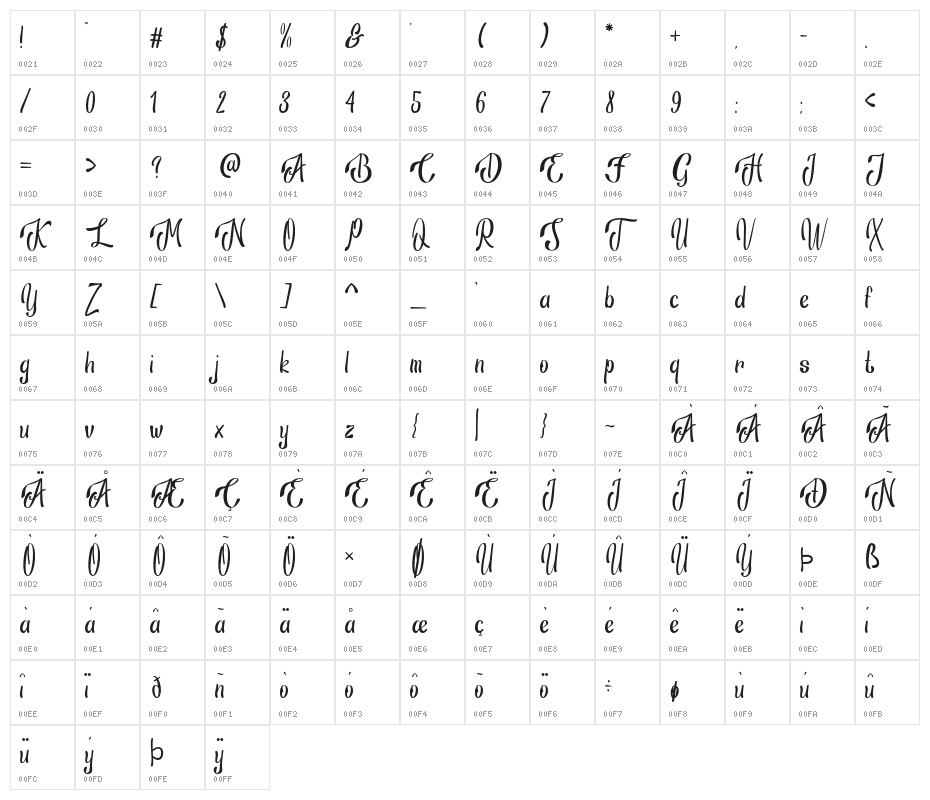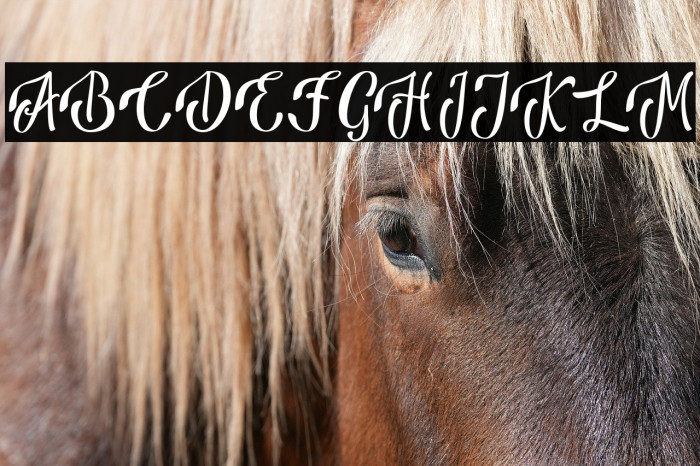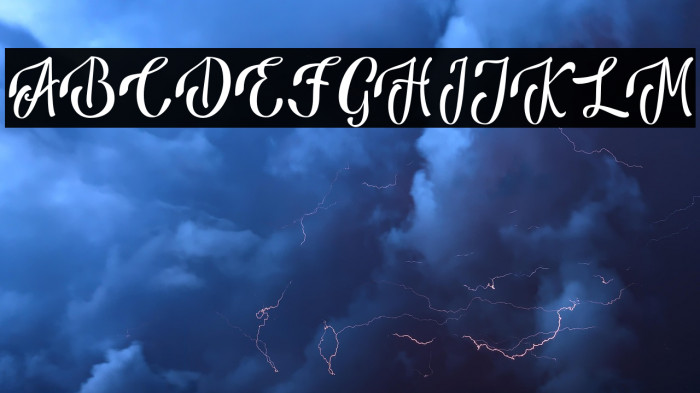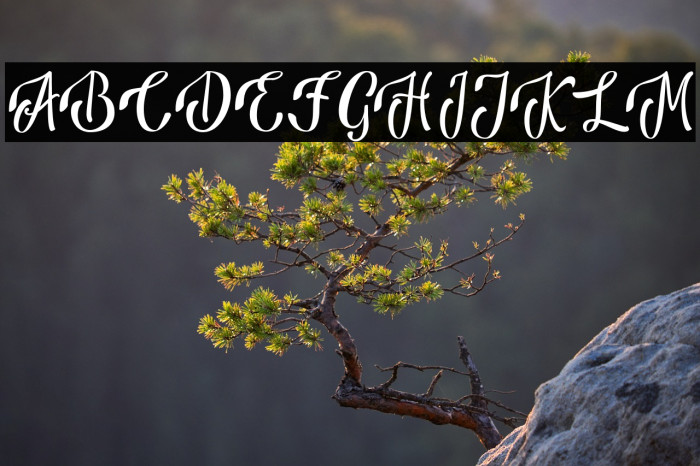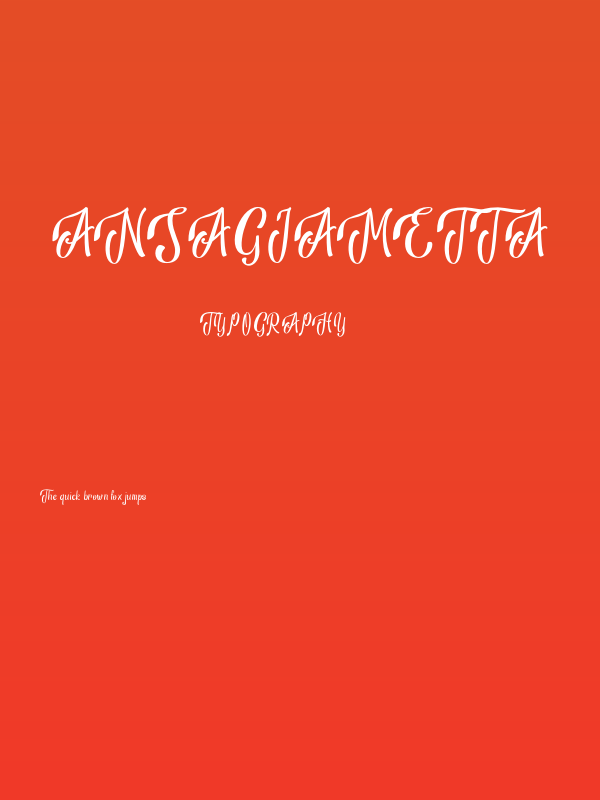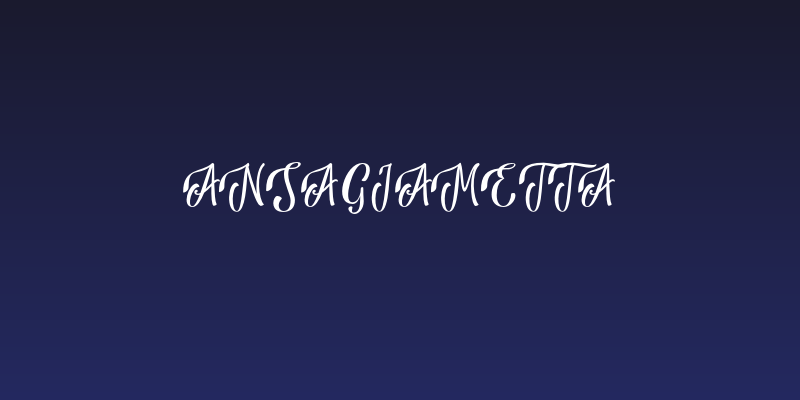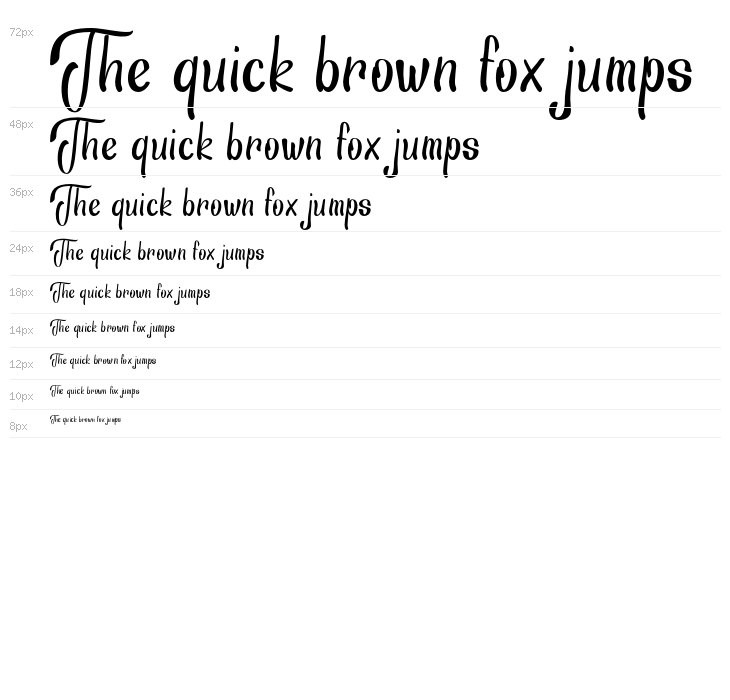
AnsagiaMetta Font
AnsagiaMetta Description
This font features a playful and elegant script style with a handwritten appearance. The uppercase letters are characterized by their flowing, cursive forms, while the lowercase letters maintain a consistent, smooth stroke. The numerals are clear and legible, matching the overall aesthetic of the alphabet. Special characters are designed with a similar flair, adding to the font's cohesive look. The strokes vary slightly in thickness, giving it a dynamic and lively feel. This font is suitable for projects that require a personal touch or a creative, artistic vibe.
| Proposed Projects | Ideal for wedding invitations, greeting cards, branding, and creative projects that require a personal touch. |